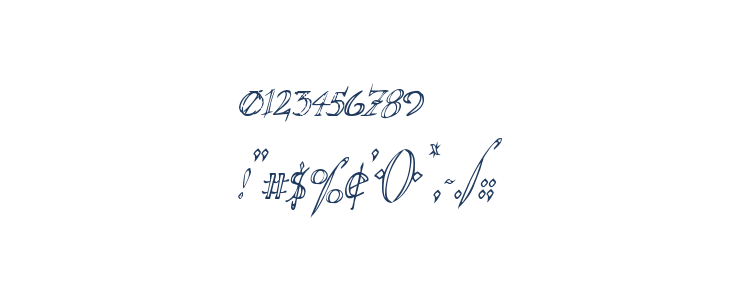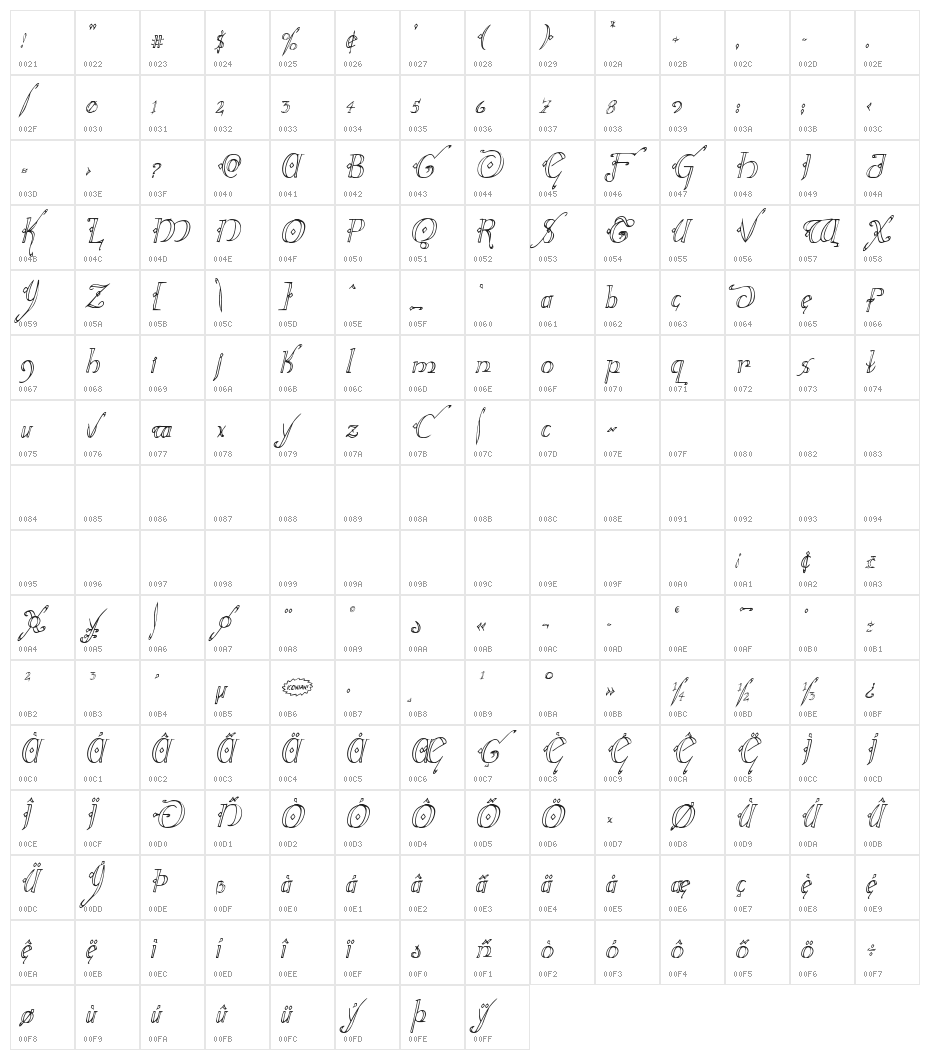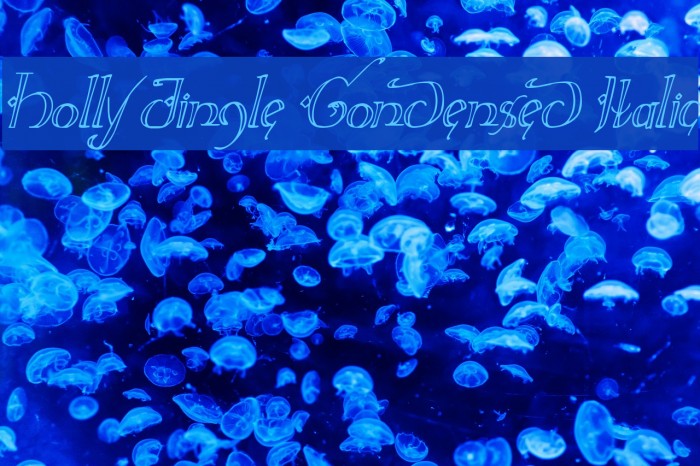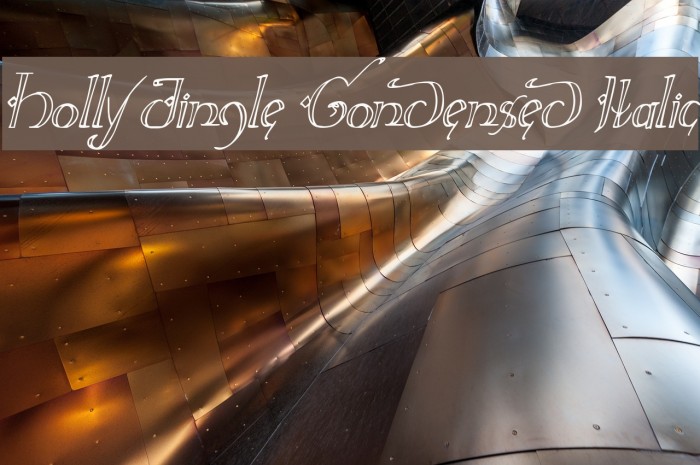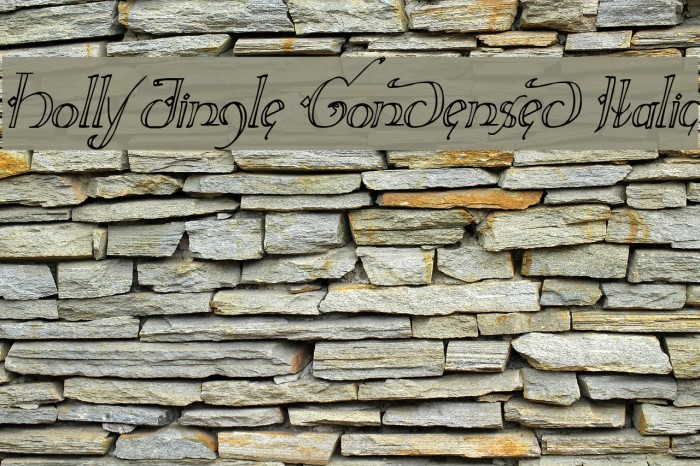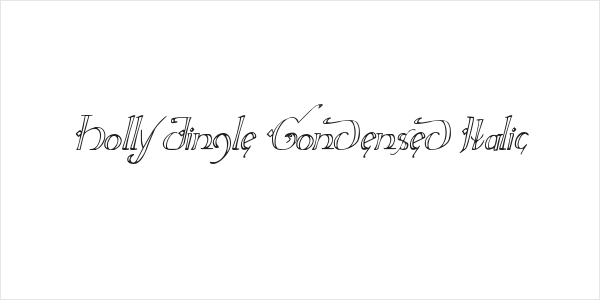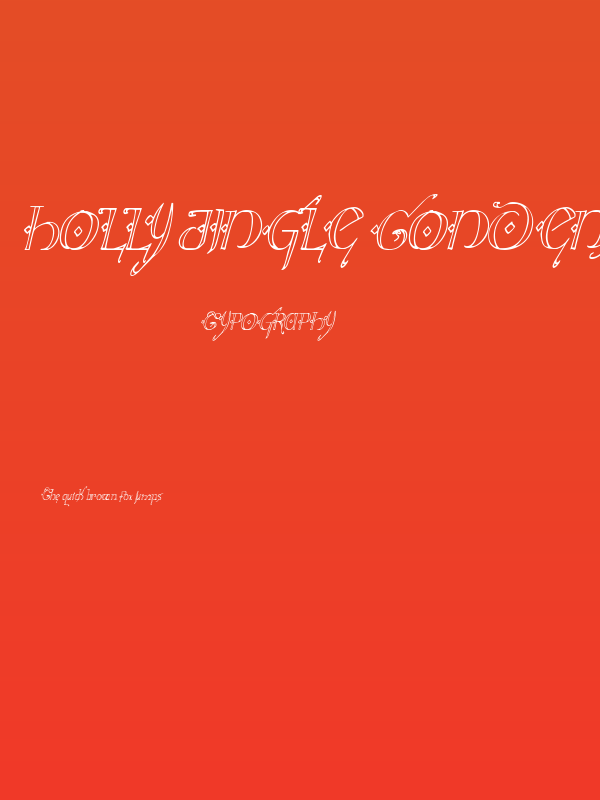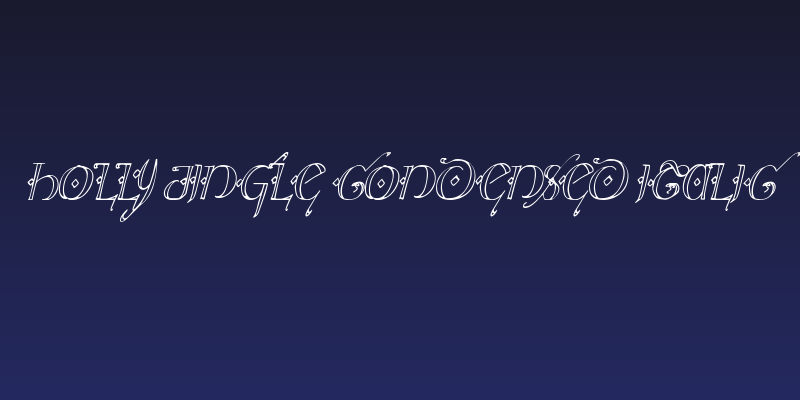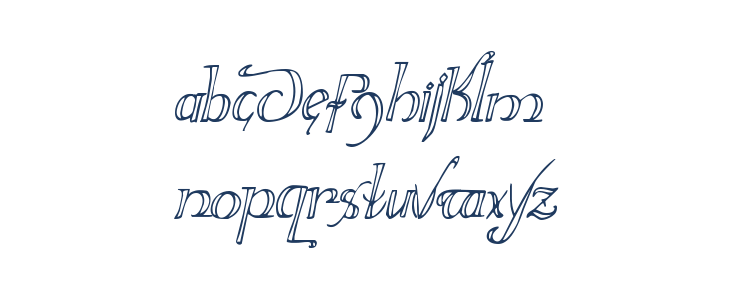
Holly Jingle Condensed Italic Font
Holly Jingle Condensed Italic Description
This font features a whimsical and festive design, characterized by its decorative and playful elements. The letters are adorned with unique flourishes and swirls, giving them a lively and dynamic appearance. The condensed nature of the font allows for efficient use of space, making it ideal for creative layouts. The italic style adds a sense of movement and elegance, enhancing its festive charm. The font maintains a consistent stroke width, providing a balanced and harmonious look. Its intricate design is perfect for capturing attention and conveying a sense of joy and celebration.